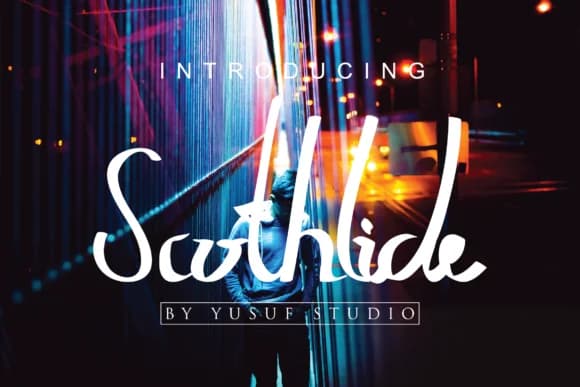
Scothlide conveys confidence and personality through its bold, hand-drawn letterforms that refuse to blend into the background. Designer hidayart94 crafted this handwritten script specifically to inject authentic character into branding work that demands real presence on the page. With its substantial weight and expressive character, the typeface stands out on wedding invitation suites, artisan product labels, indie cafe logos, custom event posters for boutique galleries, hand-lettered Etsy shop banners, and personalized greeting cards.
Designers working on signage for craft fairs, pop-up retail spaces, or local maker markets find Scothlide genuinely useful for creating designs that feel personal and handmade rather than mass-produced. The script works as a focal point in layouts, commanding attention while still feeling approachable rather than formal or corporate. That hand-drawn quality makes it especially fitting for food and beverage branding, independent fashion labels, and any small business wanting to communicate warmth alongside professionalism.
To keep your designs readable and balanced, pair Scothlide with a clean, minimal sans-serif for body text or supporting information. This pairing lets the script function as your visual anchor without overwhelming the viewer or sacrificing legibility across different formats. You'll find Scothlide on Creative Fabrica, where you can bring this hand-drawn confidence and character to your next design project.
Scothlide Font is a script font that shines as a display or heading face. Pair it with a clean sans-serif or serif font for body text β the contrast creates a clear hierarchy while the two styles stay balanced and easy to read.
Scothlide Font